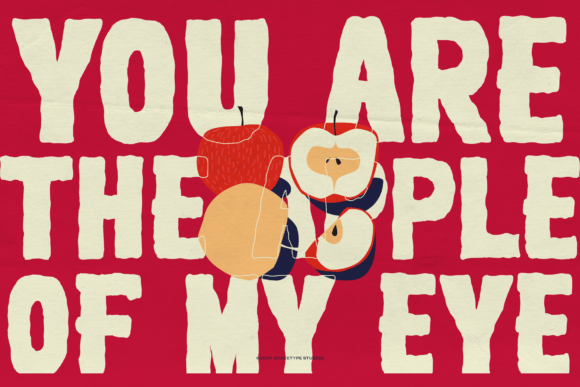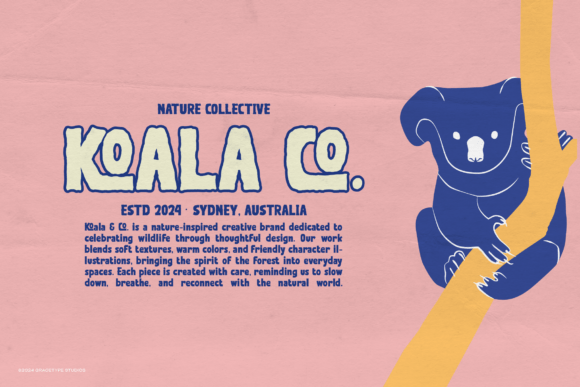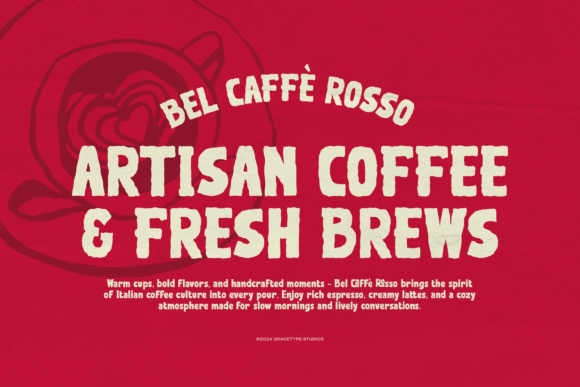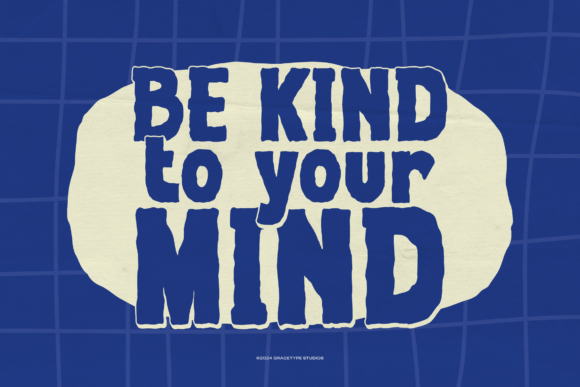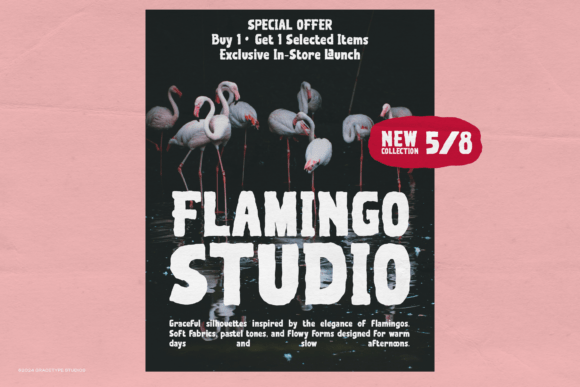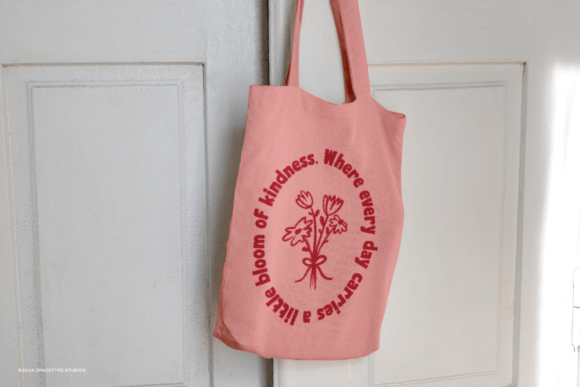
Introduction to Snarl Rough Font
There’s something magical about staring at a blank page, a canvas of endless possibilities. The creative process is a thrilling dance between imagination and execution, and for designers, it’s a daily ritual. You’ve poured your heart into a project, and it’s time to give it a face – a visual identity that captures the essence of your idea. This is where the perfect font comes in, and we’re excited to introduce you to one of our favorites: the Snarl Rough Font.
This high-quality, hand-drawn font from Gracetypestudio is a game-changer for any design project. With its unique, rough texture and transparent background, Snarl Rough Font adds a touch of whimsy and personality to your work. Whether you’re designing logos, branding materials, or homeware products, this font is a valuable resource that will take your creative project to the next level.
Key Features of Snarl Rough Font
- Unique, high-quality design resource ideal for creative projects
- Perfect for designers and artists looking for a bold, rough texture in their designs
Honest Review: Snarl Rough Font
As a designer, I’m always on the lookout for high-quality design resources that can elevate my creative projects. Recently, I came across the Snarl Rough Font, and I’m excited to share my honest review.
What works well: ✨ The Snarl Rough Font is incredibly versatile, making it perfect for a variety of design applications, from logos and branding to typography and editorial content. The font’s rough texture and distressed feel add a unique touch to any project.
- High-quality design: The font is well-designed and displays beautifully, even at larger sizes.
- Transparent background: The font comes with a transparent background, allowing for easy integration with other design elements.
What doesn’t work well: ⚠️ While the Snarl Rough Font is an excellent resource, it may not be suitable for all design projects. The font’s rough texture can be overwhelming if used extensively, so it’s essential to use it judiciously.
Overall impression: The Snarl Rough Font is a fantastic design resource that can add a unique touch to any creative project. Its high quality, versatility, and free download make it an excellent addition to any designer’s library.
How to Use Snarl Rough Font
The Snarl Rough Font is a high-quality, free download perfect for any creative project. Its unique texture and distressed look make it ideal for adding a touch of edginess to your designs.
Tips for Getting the Most Out of Snarl Rough Font
For the best results, use the Snarl Rough Font on a transparent background to really make the texture stand out. You can also experiment with different font sizes and styles to create a unique look.
The Snarl Rough Font is perfect for designs that need a bold, edgy look. Some common use cases include:
– Distressed text overlays for promotional materials
– Headlines and titles for creative projects
– Labels and tags for products or services
Rock Salt
Rock Salt is a free download font that offers a unique, hand-drawn look. It’s perfect for design projects that require a creative, artistic touch. When to use: for projects that need a whimsical or playful feel. How it compares: Rock Salt has a more organic, hand-drawn feel compared to Snarl Rough Font, making it suitable for projects that need a more natural, human touch.
Can I customize the Snarl Rough Font to fit my design project’s specific needs?